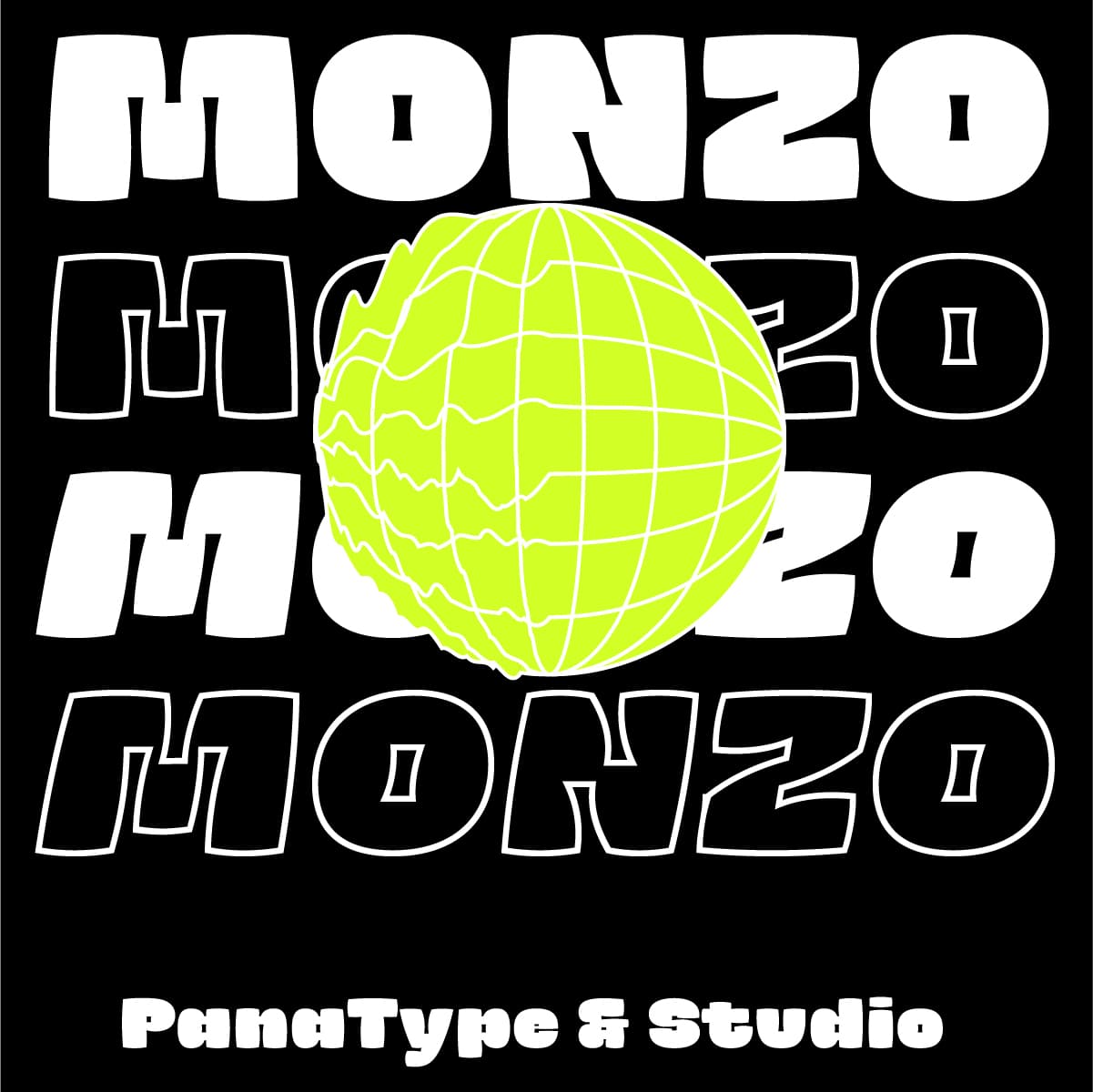
<p>MONZO is Contemporary Fat Font comes with 2 styles ( Regular & Outline ) with corresponding italics. Perfect for Logotype, Head text, Displayed text, and many more).</p>